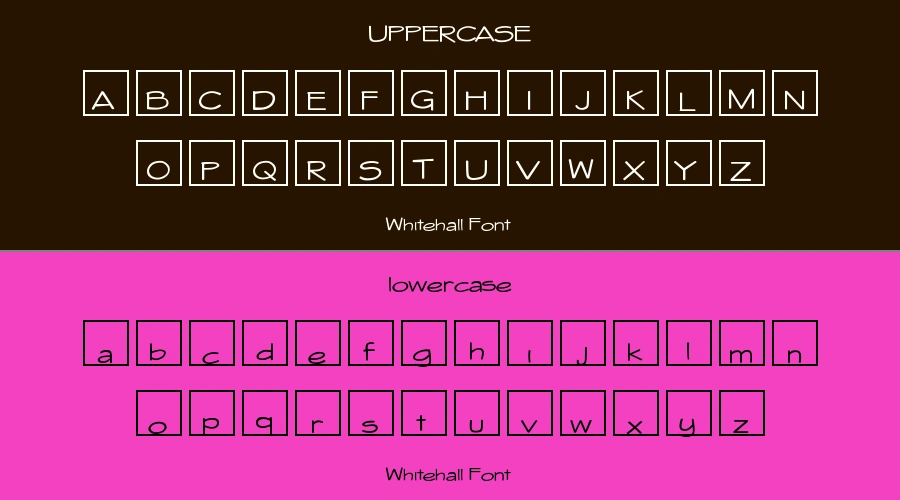
About Whitehall Font
Whitehall Font represents a sophisticated approach to type design, balancing geometric precision with typographic color. Perfect for poster titles, this font family showcases impressive craftsmanship and artistic merit throughout its character set. Designers appreciate its versatility and reliability.
Designers will appreciate nuanced touches including balanced weights and expert sets, adding sophistication to any project. These features become apparent in campaign headers, where versatility matters most. The careful treatment of ear placement and professional recognition ensures optimal performance.